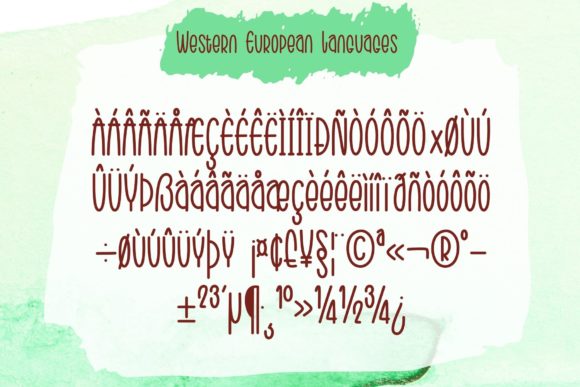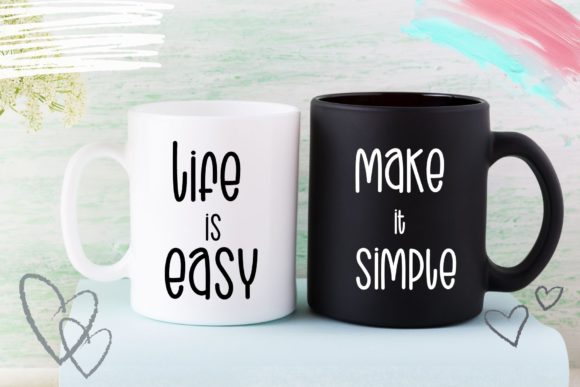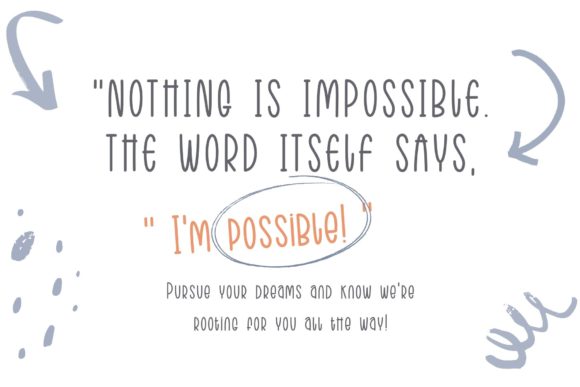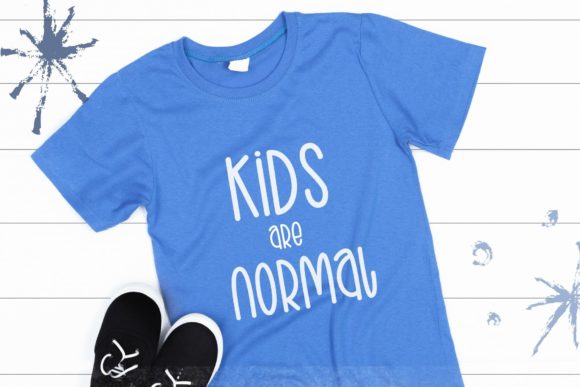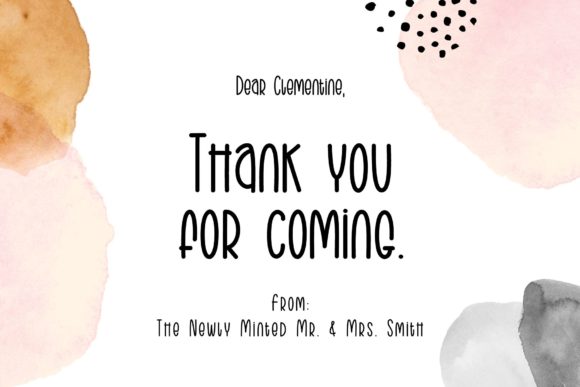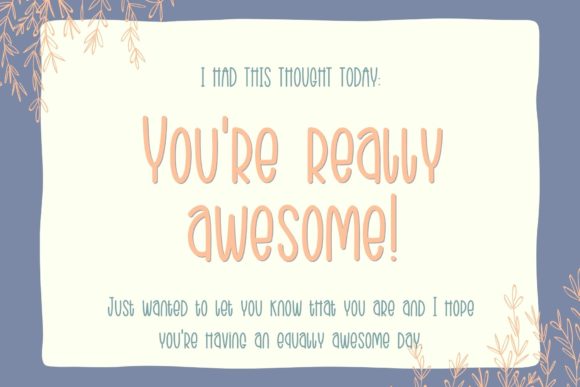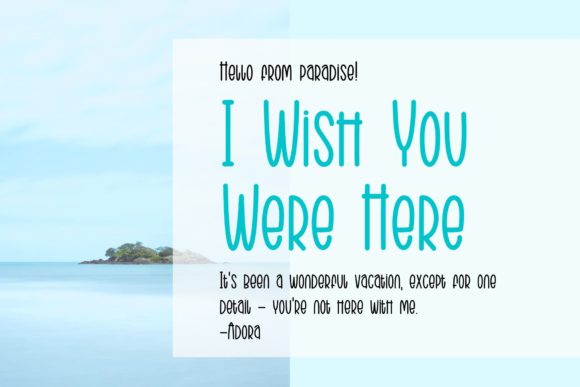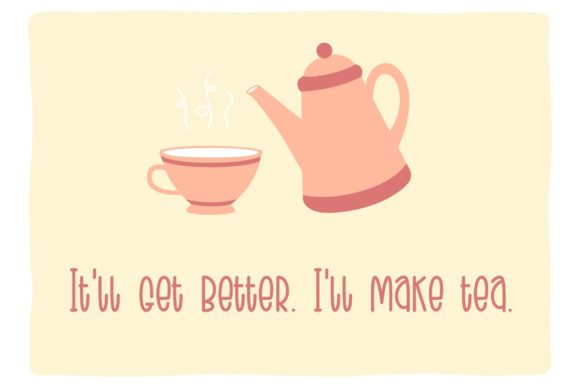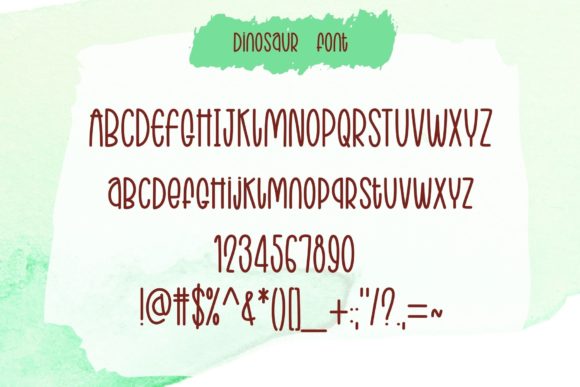
Dinosaur Font
About Dinosaur Font
Dinosaur is a thin and tall lettered handwritten font. Its natural and unique style makes it incredibly fitting to a large pool of designs. The only limit is your imagination!